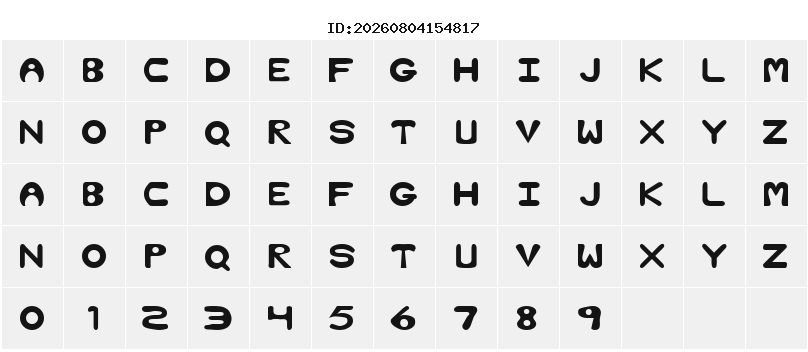
• Font Name: Nimble
• Full Font Name: Nimble Regular
About Nimble.ttf
Nimble.ttf is a modern, elegant sans-serif font designed for ultimate readability and visual harmony. Perfect for branding, headlines, web design, and print materials.